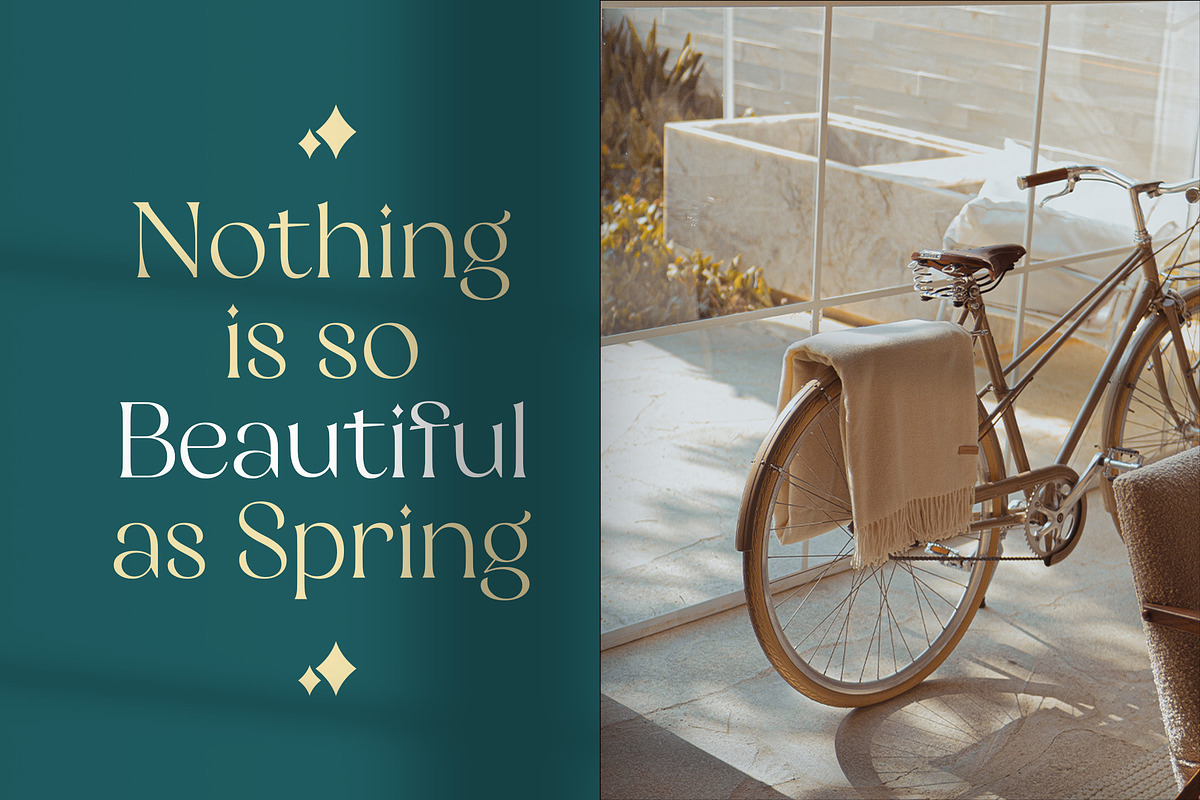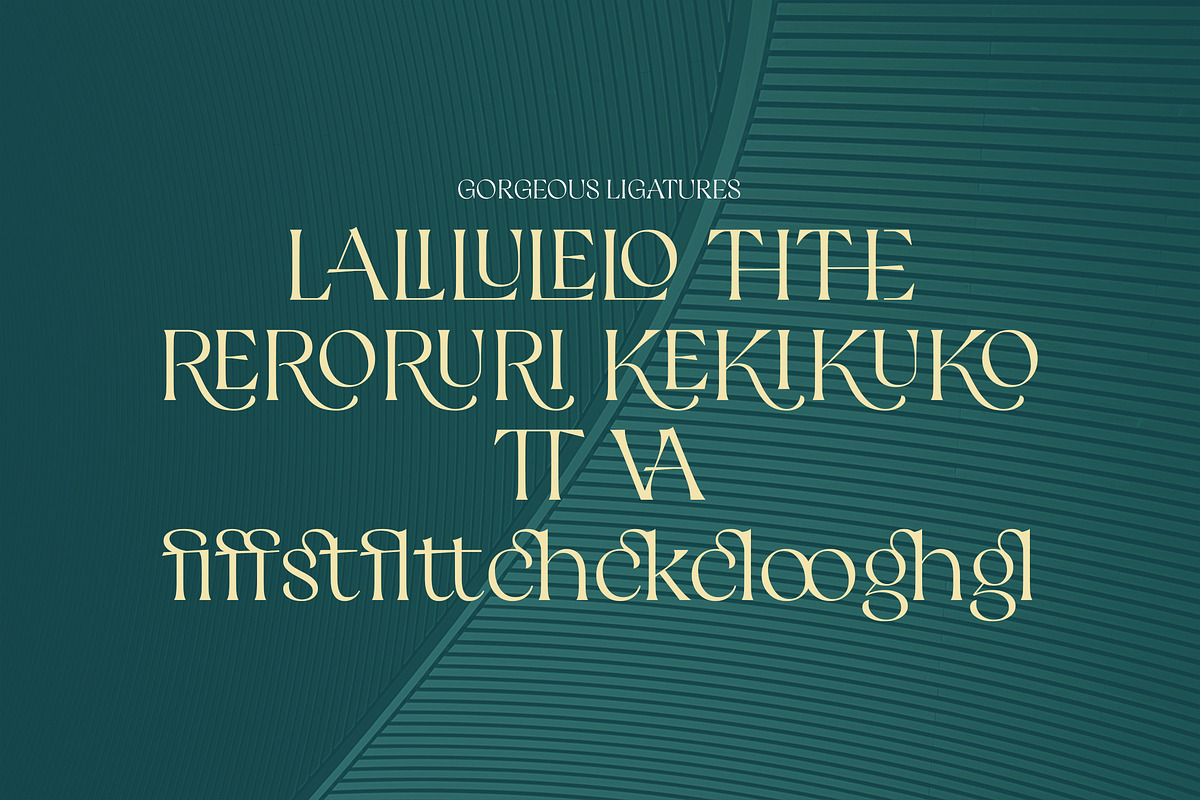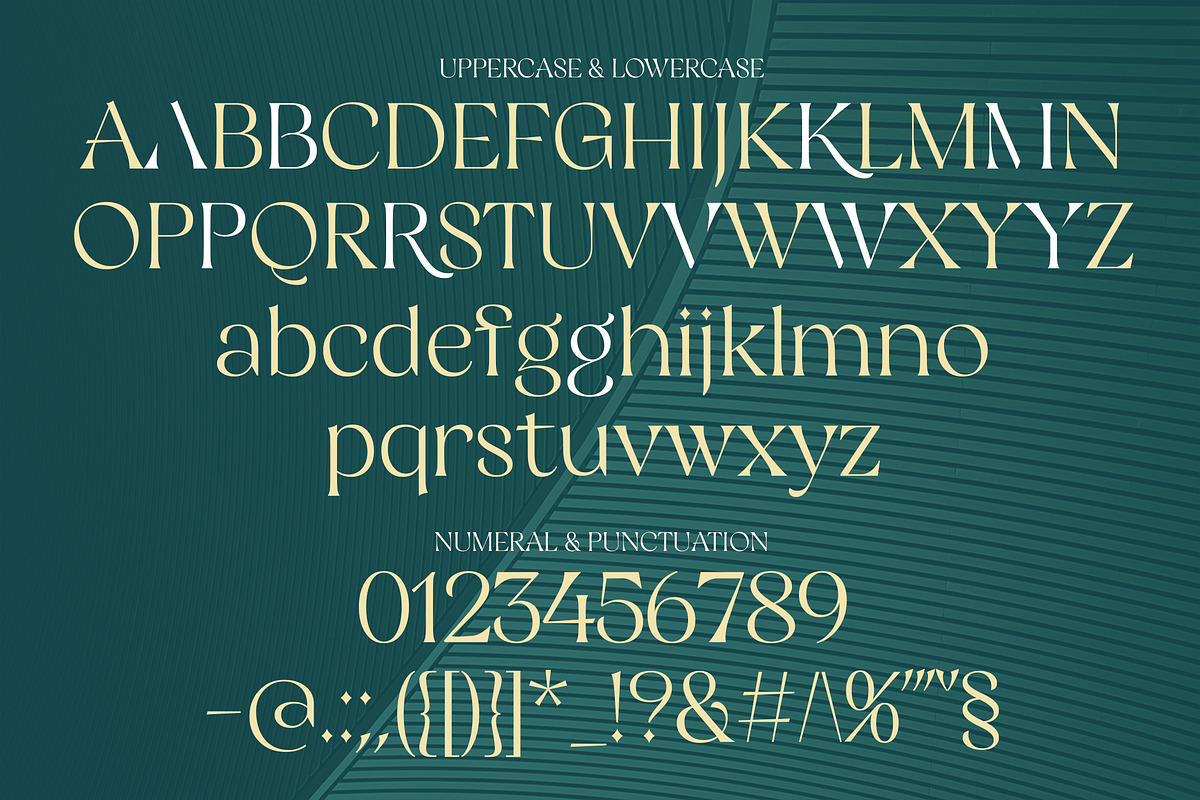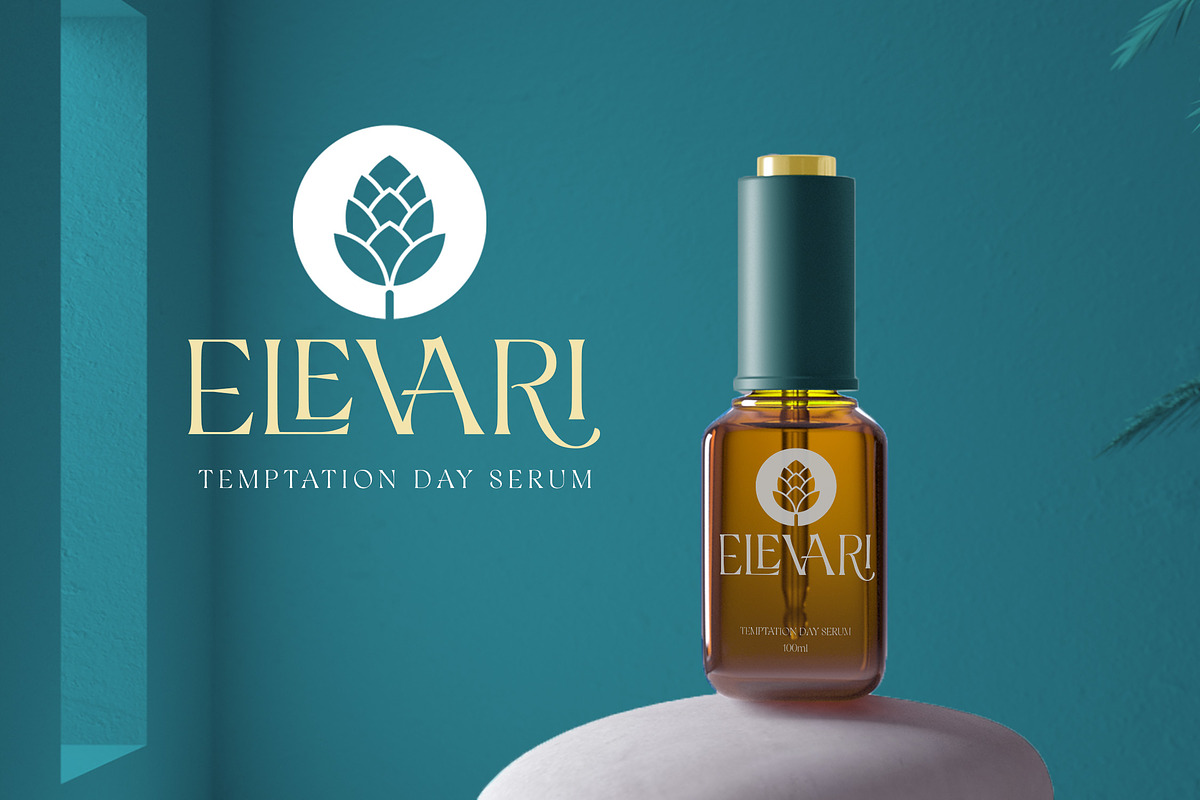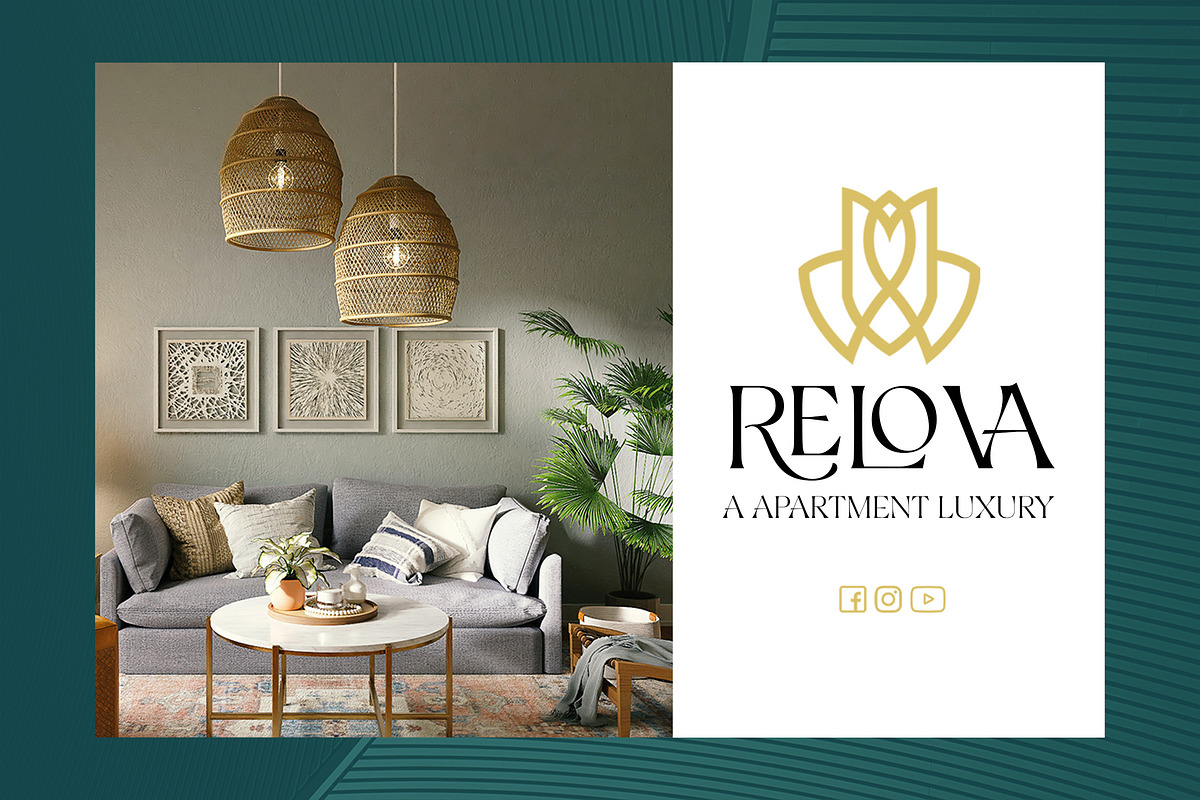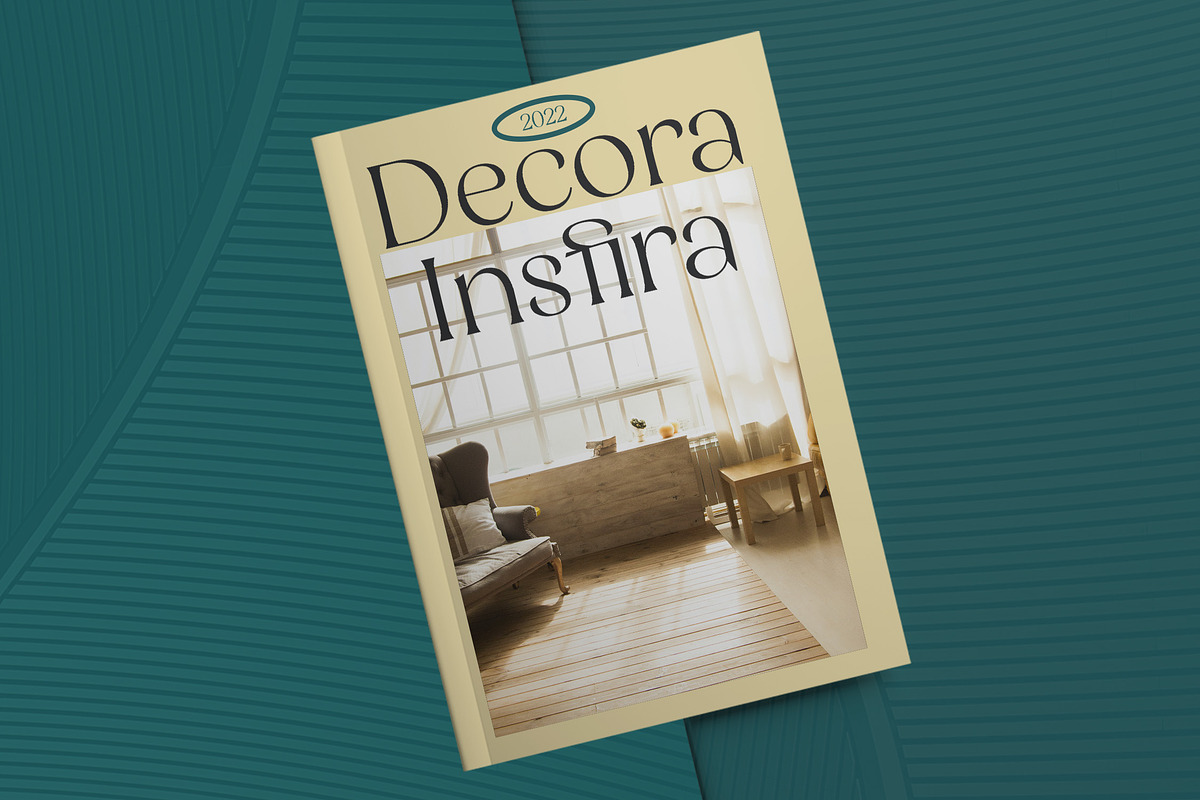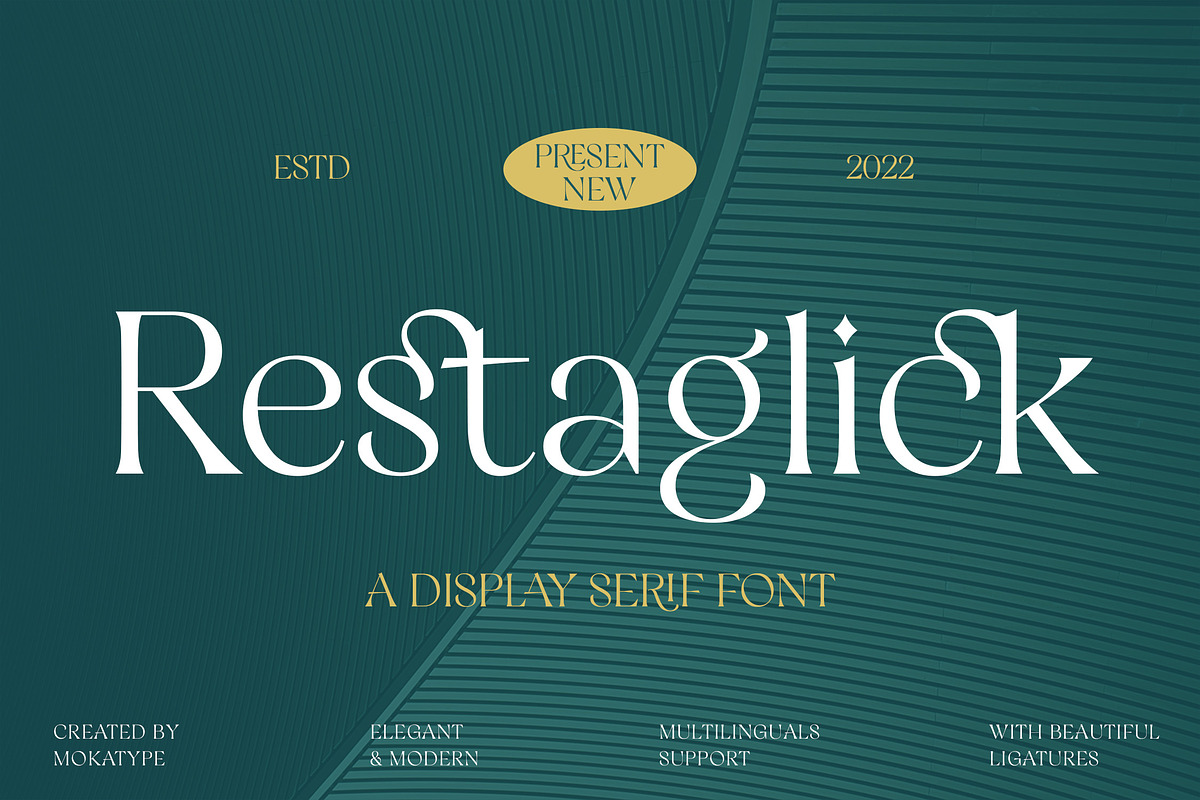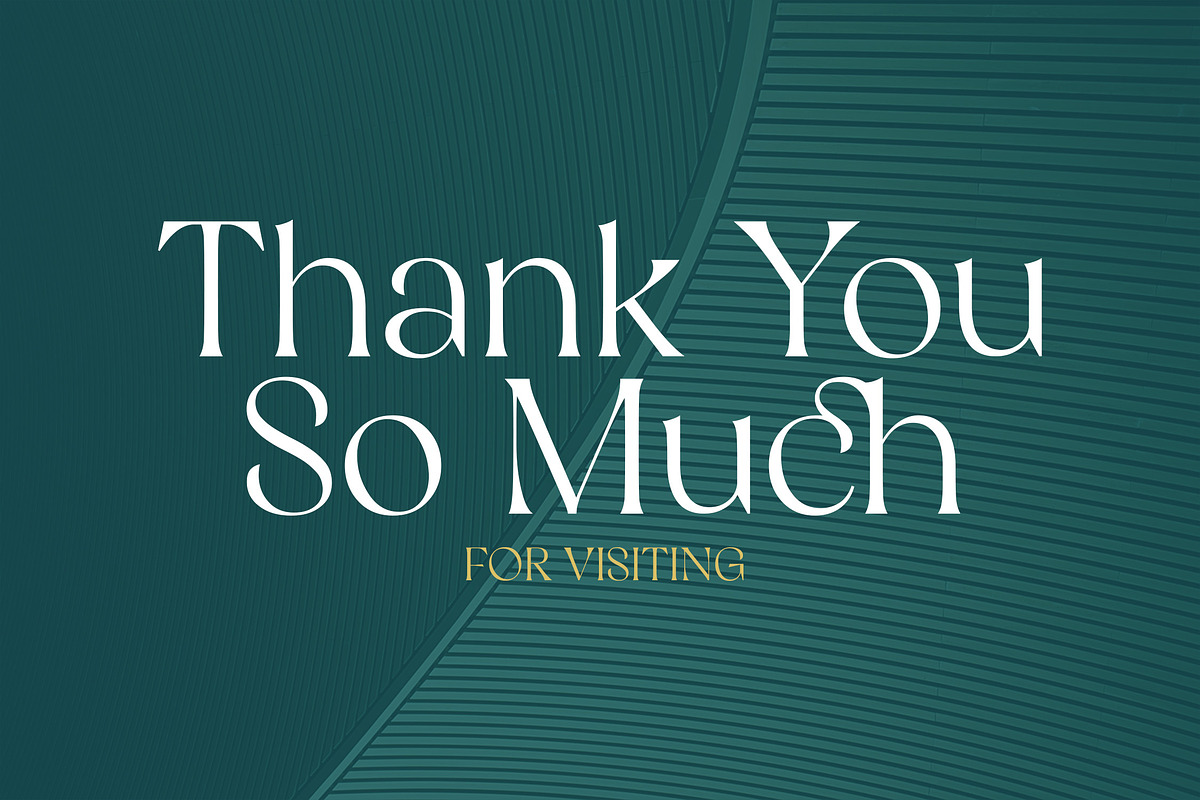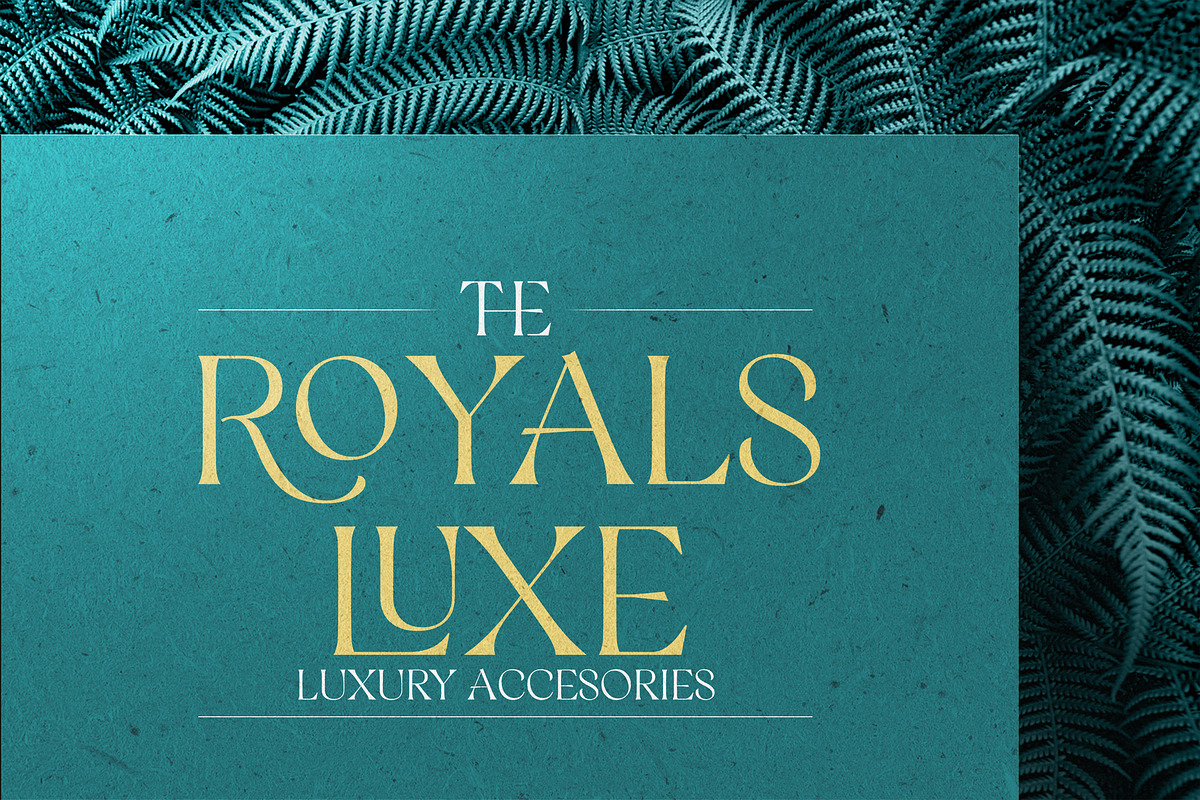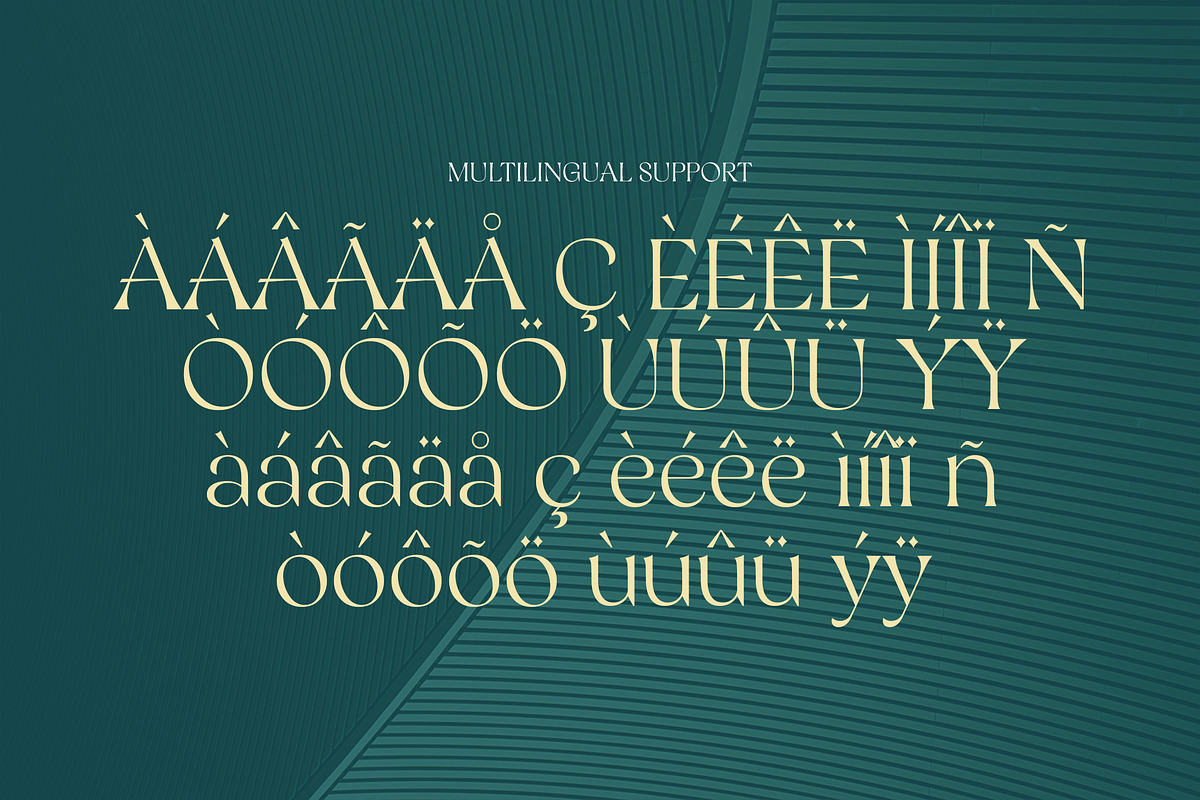
Restaglick - Elegant Ligatures
Restaglick - Ligatures Connected Serif is an elegant and unique font that uses ligatures to link letters smoothly. Perfect for adding a unique twist to word-mark logos, monograms, or pull quotes. Restaglick has 28 ligatures as well making it super fantastic. Ligature can be turned off if required for standard writing needs. Any question? Just ask!